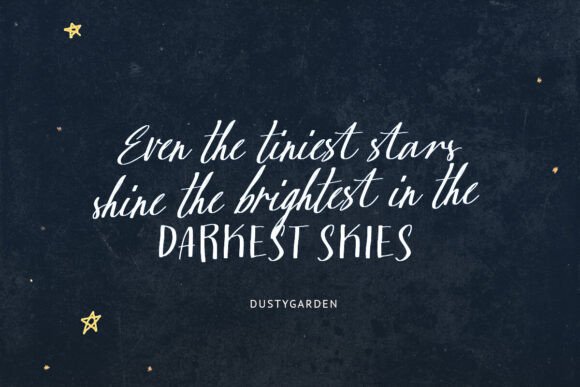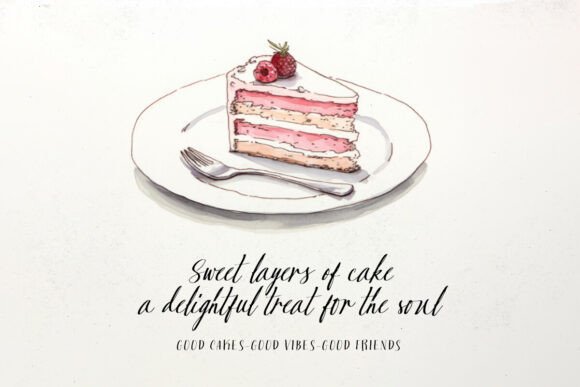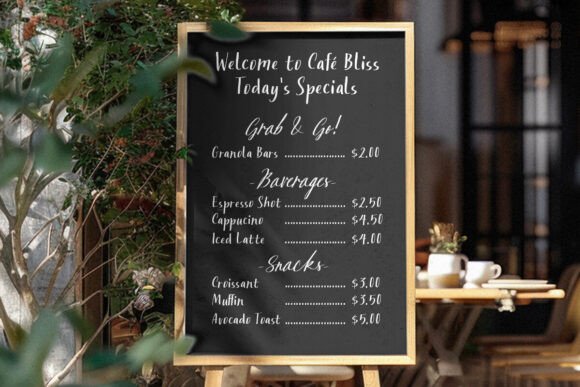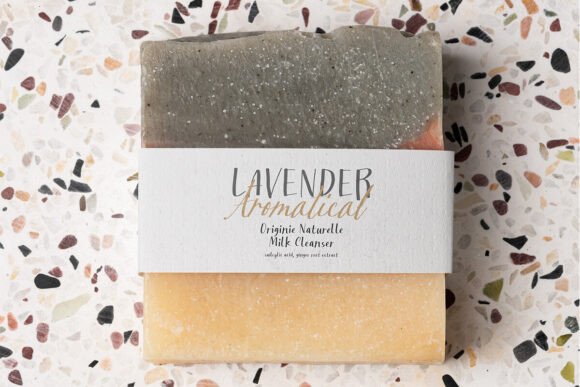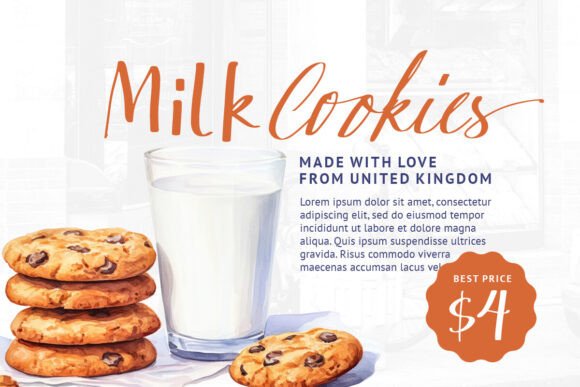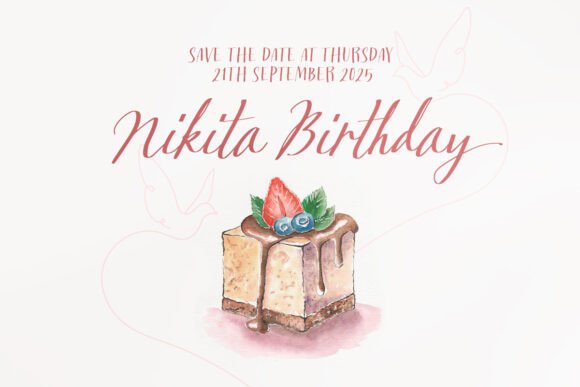
Introduction to Dusty Garden Font
As I sat in my small studio, surrounded by half-finished design projects and scattered sketchbooks, I stumbled upon the perfect font for my latest creative endeavor. The Dusty Garden Font family had been lingering in my design resources folder for months, waiting to be discovered. Its unique blend of elegant script and natural sans fonts was exactly what I needed to bring my project to life. With its beautiful ligatures and end alternates, the script font added a touch of handmade charm, while the sans font provided a clean and simple contrast.
I was particularly drawn to the Dusty Garden Font’s versatility, making it an ideal choice for a wide range of design projects, from wedding invitations to menu lists. Its high-quality design and transparent background made it easy to work with, and its support for multiple languages opened up a world of possibilities for global design projects. Whether you’re a seasoned designer or just starting out, the Dusty Garden Font is a valuable resource that’s sure to elevate your creative projects.
Key Features of Dusty Garden Font
- High-quality design resource with a distressed, vintage aesthetic, perfect for creative projects.
- Unique characteristics include subtle texture and imperfections, adding a touch of realism to any design.
- Perfect for use in a variety of creative projects, from digital art to print materials, and everything in between.
Honest Review: Dusty Garden Font
I recently stumbled upon the Dusty Garden Font, and I must say, it’s been a game-changer for my creative projects. This font is a fantastic addition to any design resource library, especially for those working on free download designs.
- ✨ High-quality design: The Dusty Garden Font boasts a beautiful, intricate design that’s perfect for adding a touch of elegance to your high-end projects.
- ✨ Transparent background: This font comes with a transparent background, making it super easy to use and combine with other design elements.
- ✨ Versatile: Whether you’re working on a wedding invitation, a luxury brochure, or a creative blog post, the Dusty Garden Font is sure to impress.
While the Dusty Garden Font is an excellent choice for most design projects, there are a few limitations to keep in mind:
- ⚠️ Limited font sizes: The font doesn’t come in a wide range of sizes, which might be a concern for designers who need to create complex layouts.
- ⚠️ Compatibility issues: Some designers have reported compatibility issues with certain software programs, so be sure to test the font thoroughly before using it in a critical project.
Overall, I’m thoroughly impressed with the Dusty Garden Font. Its unique design, high-quality feel, and versatility make it an excellent addition to any design resource library. Just be aware of the potential limitations, and you’ll be all set for a creative project that’s sure to impress!
The Dusty Garden Font is perfect for creative projects, such as wedding invitations, branding materials, or social media graphics. Its high-quality design and versatility make it an excellent addition to any design library.